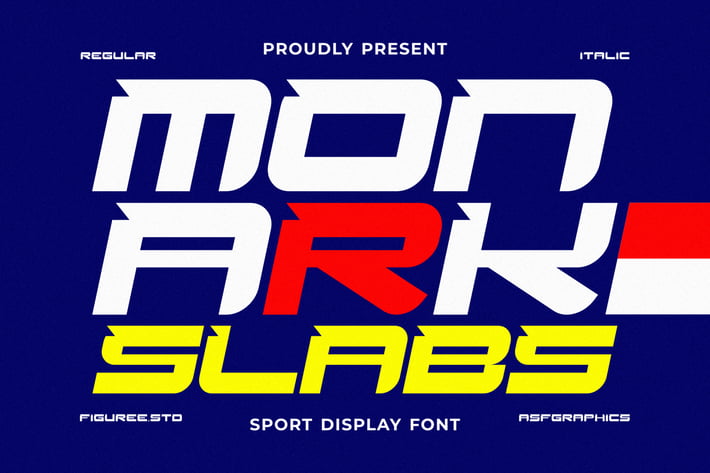
Monark Slabs - Sport Display Font
Monark Slabs is a powerful sports display font crafted for designs that need energy, confidence, and bold impact. Its robust slab-serif style makes it ideal for projects that demand a strong and professional athletic aesthetic.
🏆 Dynamic Design: With sharp edges and clean lines, Monark Slabs exude determination and focus, perfect for sports branding, event posters, or competitive merchandise.
⚡ Versatile Appeal: Whether used for team logos, dynamic headlines, or motivational designs, Monark Slabs adapts seamlessly, adding a commanding presence to every project.
💪 Built for Strength: The bold structure of Monark Slabs ensures readability while conveying the spirit of strength and perseverance, essential for designs that aim to inspire and energize.
Elevate your creations with Monark Slabs—the font that brings power, style, and confidence to every design.